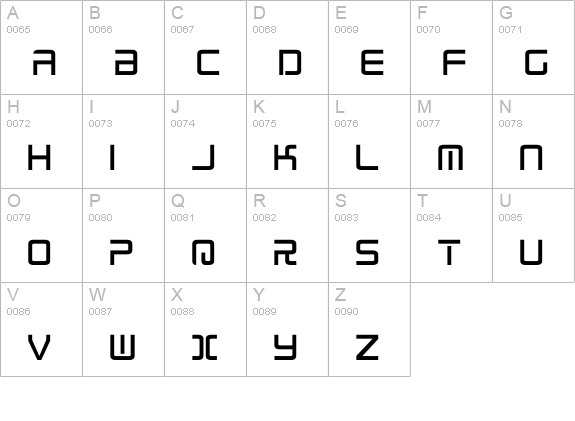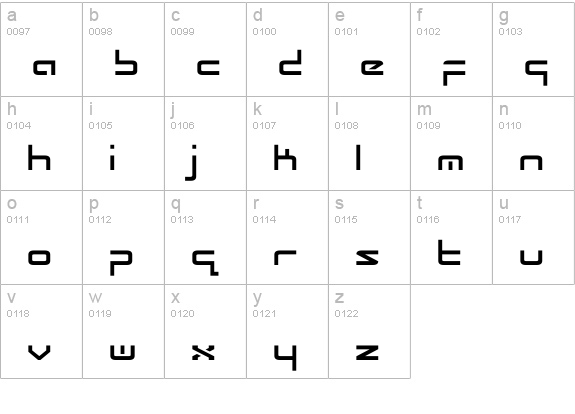
Introducing Radio Space, a cutting-edge font that takes inspiration from the futuristic elements of outer space. This font is perfect for those looking to add a touch of intergalactic charm to their designs. With its sleek and modern letterforms, Radio Space captures the essence of cosmic exploration and brings it to life on the page. What sets Radio Space apart is not just its captivating design, but also its accessibility. This font is freely available to download at FontsMarket.com, making it a fantastic option for designers, creatives, and enthusiasts alike. Whether you're working on a sci-fi themed project, a tech-focused website, or simply want to infuse a sense of adventure into your design, Radio Space is here to elevate your creations to new celestial heights. Each character in Radio Space boasts a unique and distinctive appearance, with sharp lines and geometric shapes that exude a sense of modernity. From its meticulously crafted uppercase letters to its sleek lowercase counterparts, this font offers a versatile range of options to suit your creative needs. Additionally, Radio Space includes numerals and a selection of punctuation marks, ensuring that your designs maintain a cohesive and polished look. The generous spacing between the letters in Radio Space allows for excellent legibility, whether it's displayed at larger sizes or used for body text. This font's versatility extends beyond its captivating appearance, making it suitable for a wide range of projects, from branding and logos to posters, websites, and more. Embrace the boundless possibilities of the cosmos with Radio Space, a font that combines futuristic aesthetics with the convenience of being freely available to download at FontsMarket.com. Elevate your designs to new dimensions and captivate your audience with the mesmerizing allure of this intergalactic typeface. Let Radio Space guide you on a journey of visual exploration, where the only limits are those of your imagination.